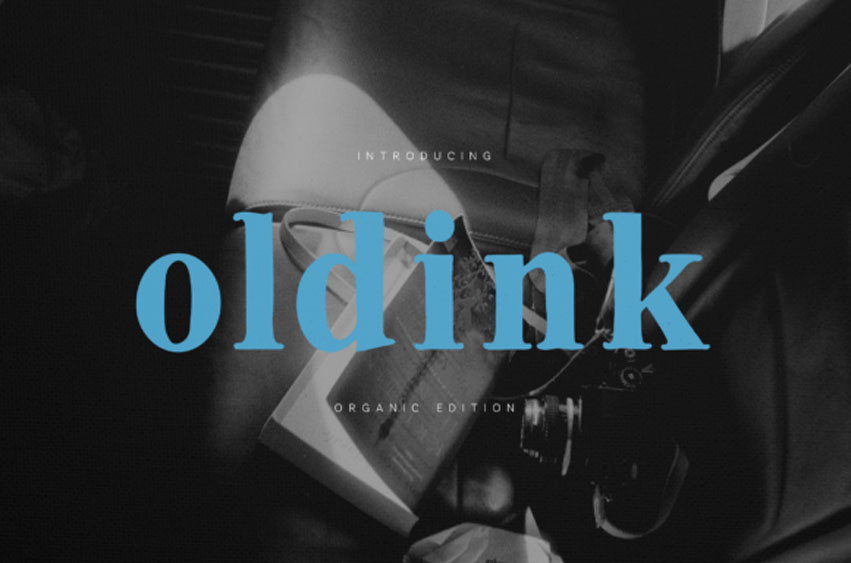
Oldink Font is an organic serif typeface that blends classic typography with subtle handcrafted imperfections.
Oldink works beautifully across a wide range of creative applications, including branding, editorial layouts, packaging design, posters, and modern visual identities.